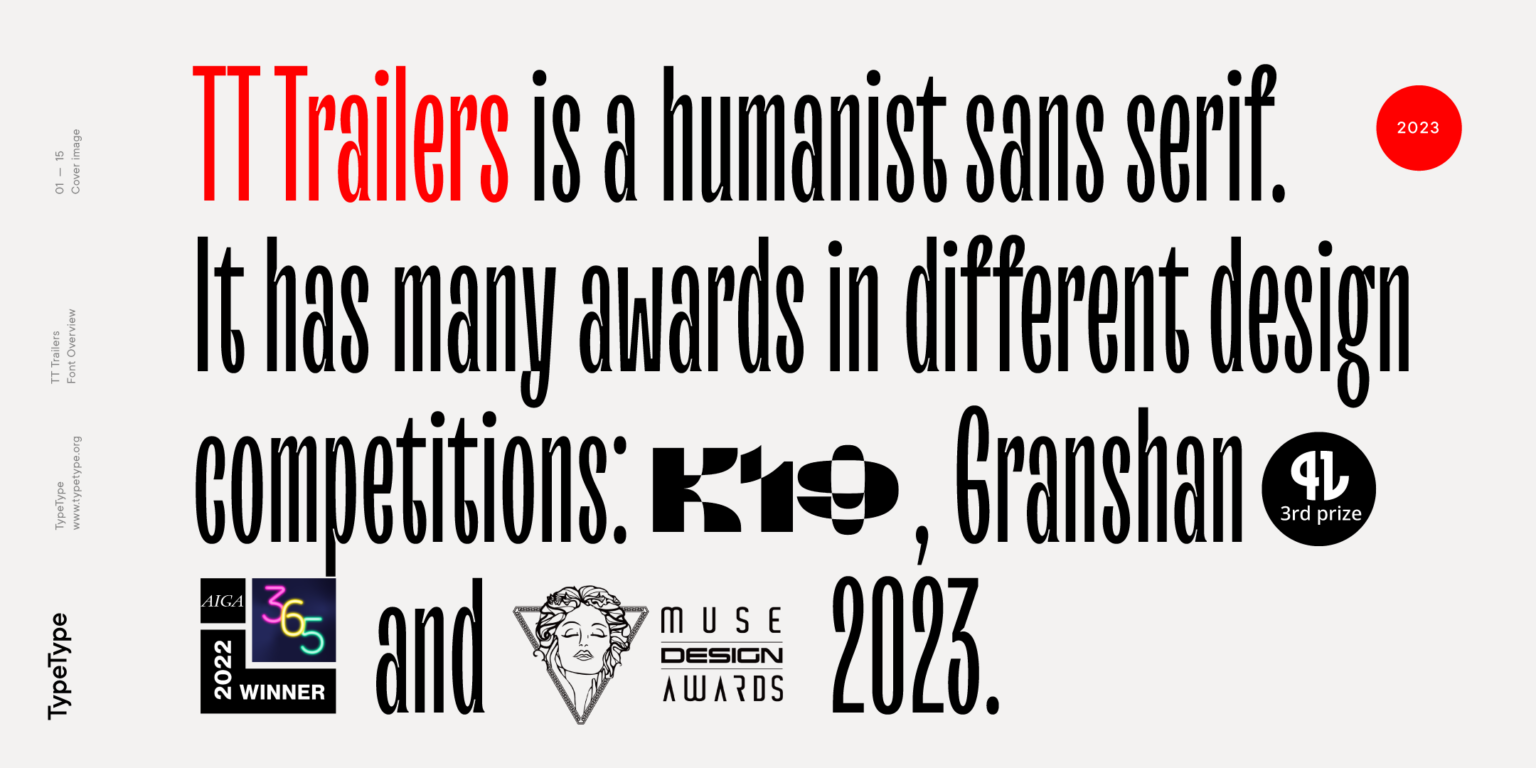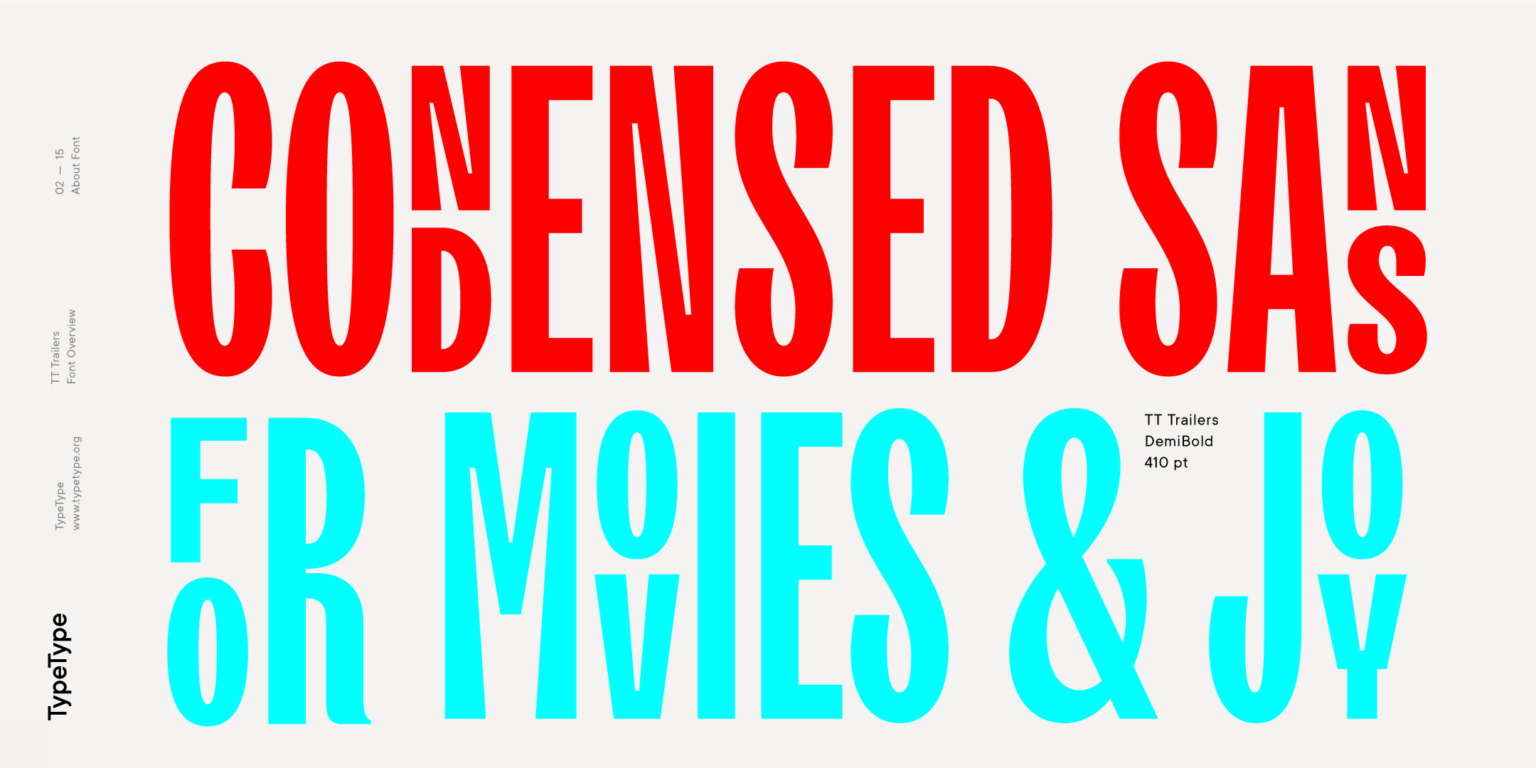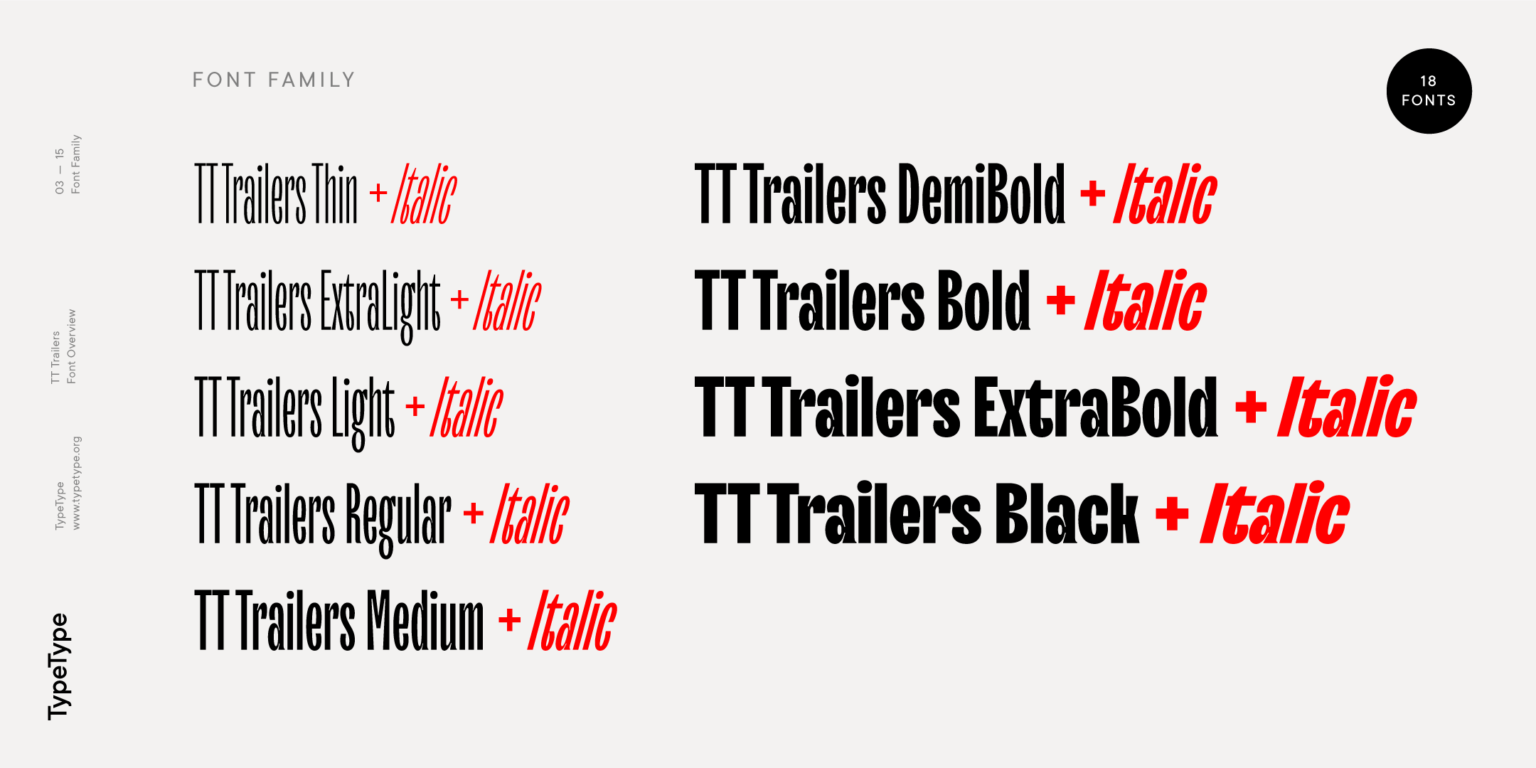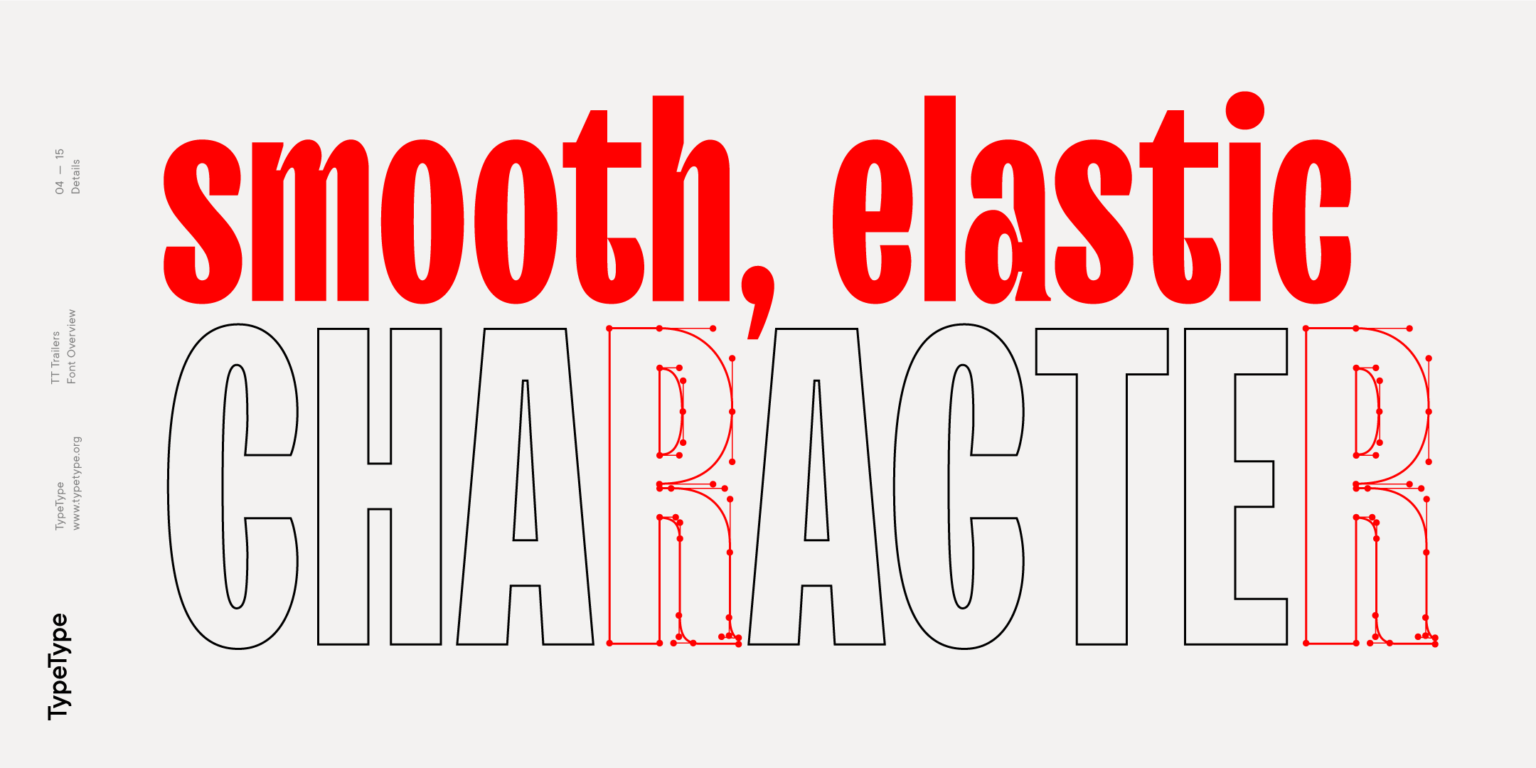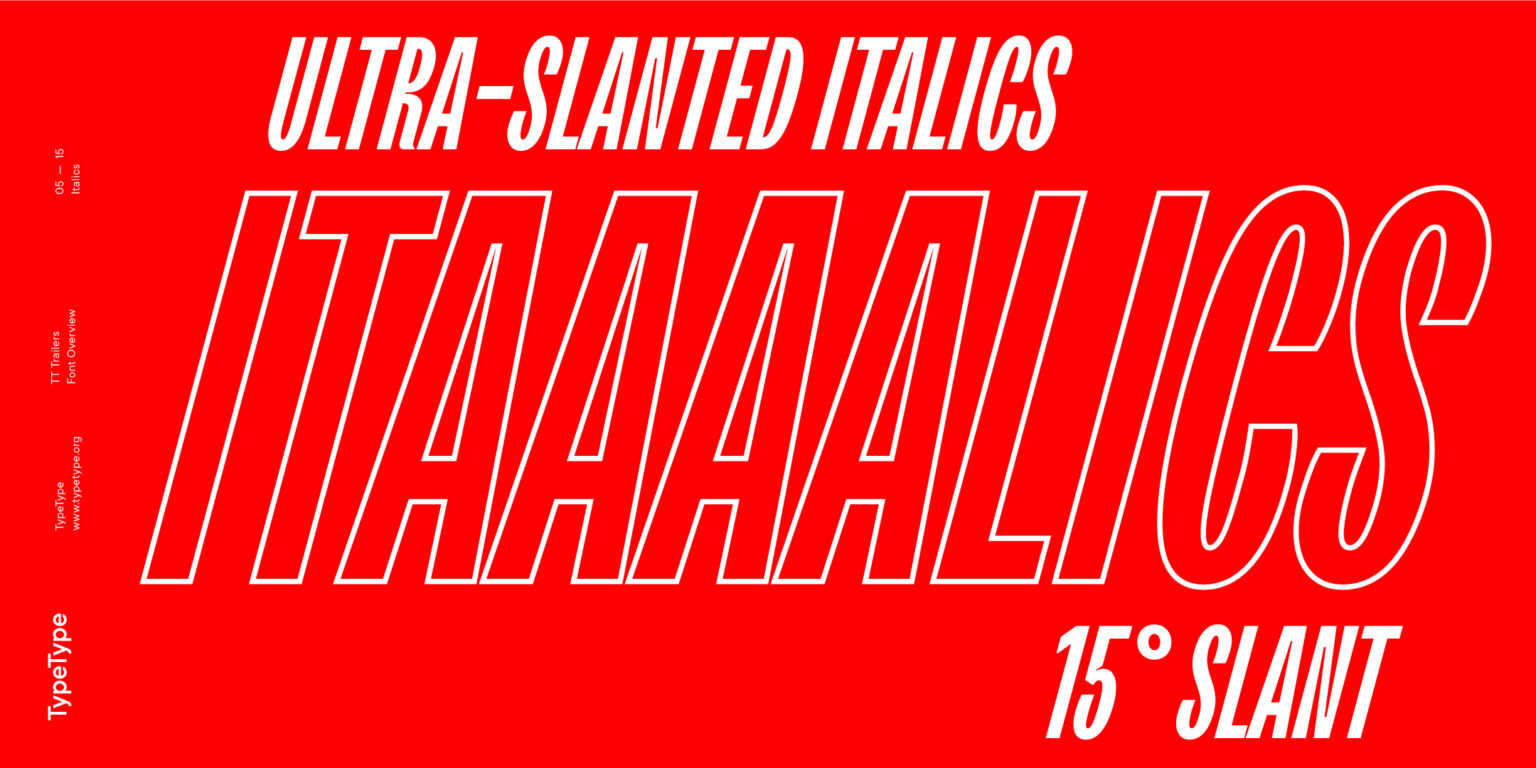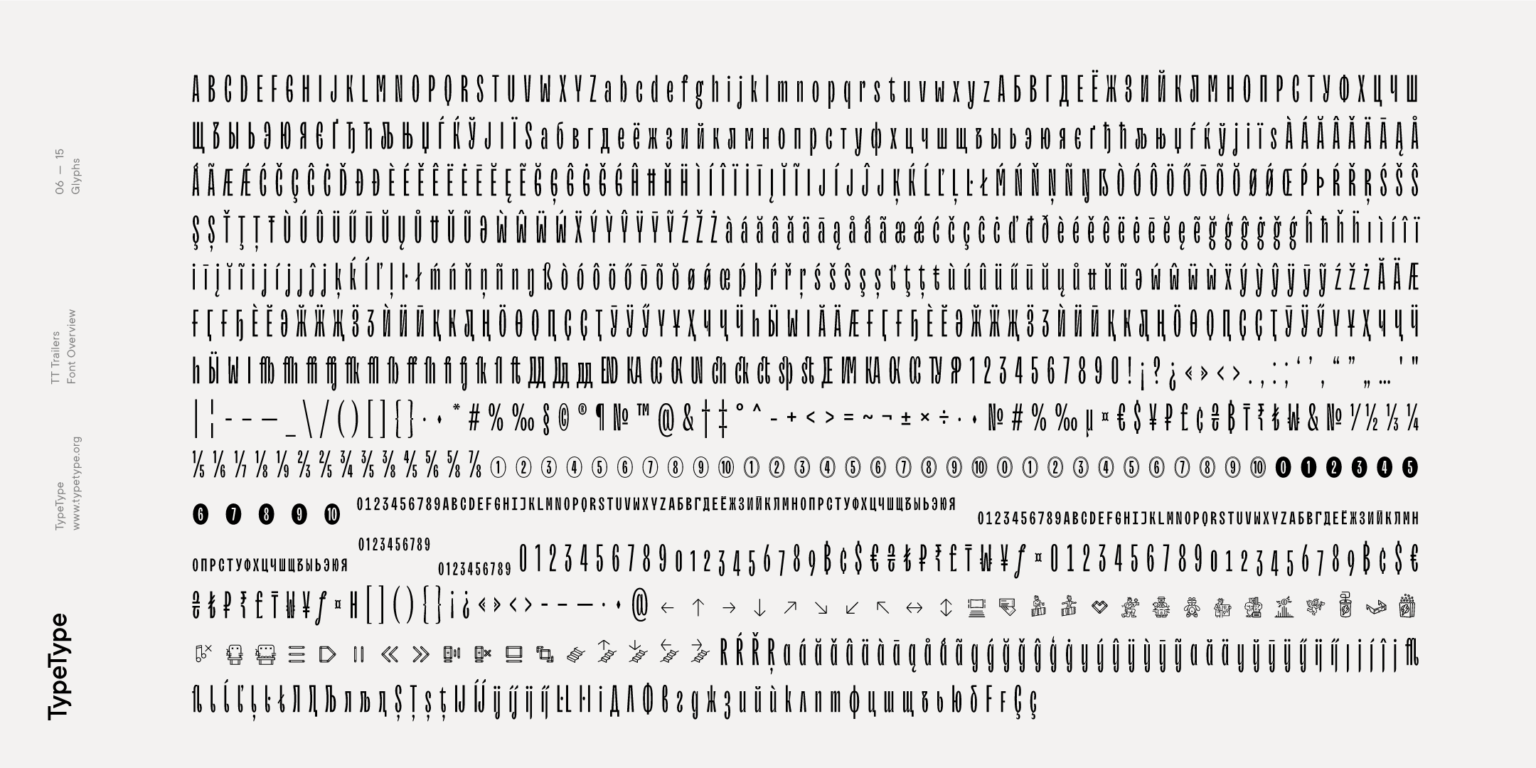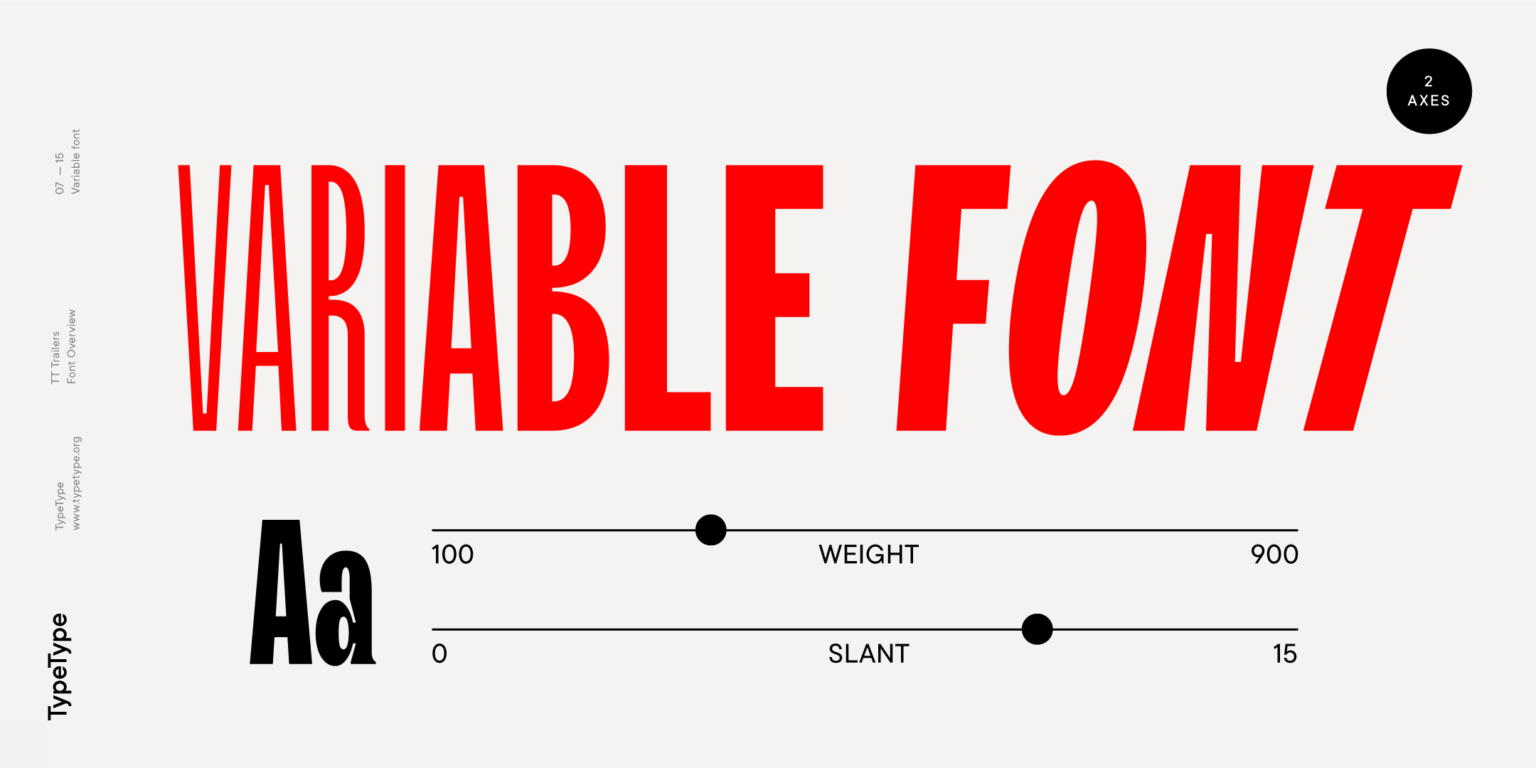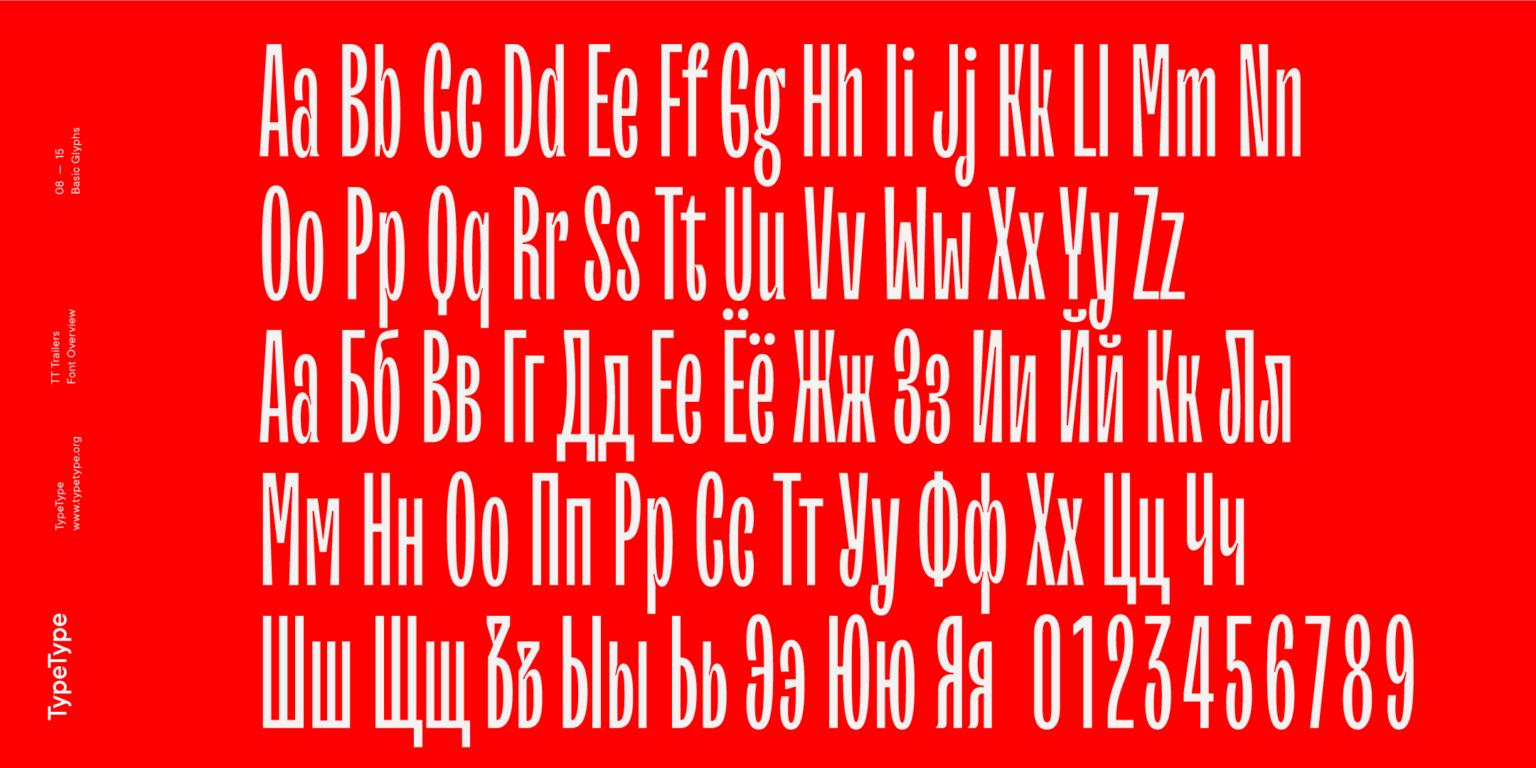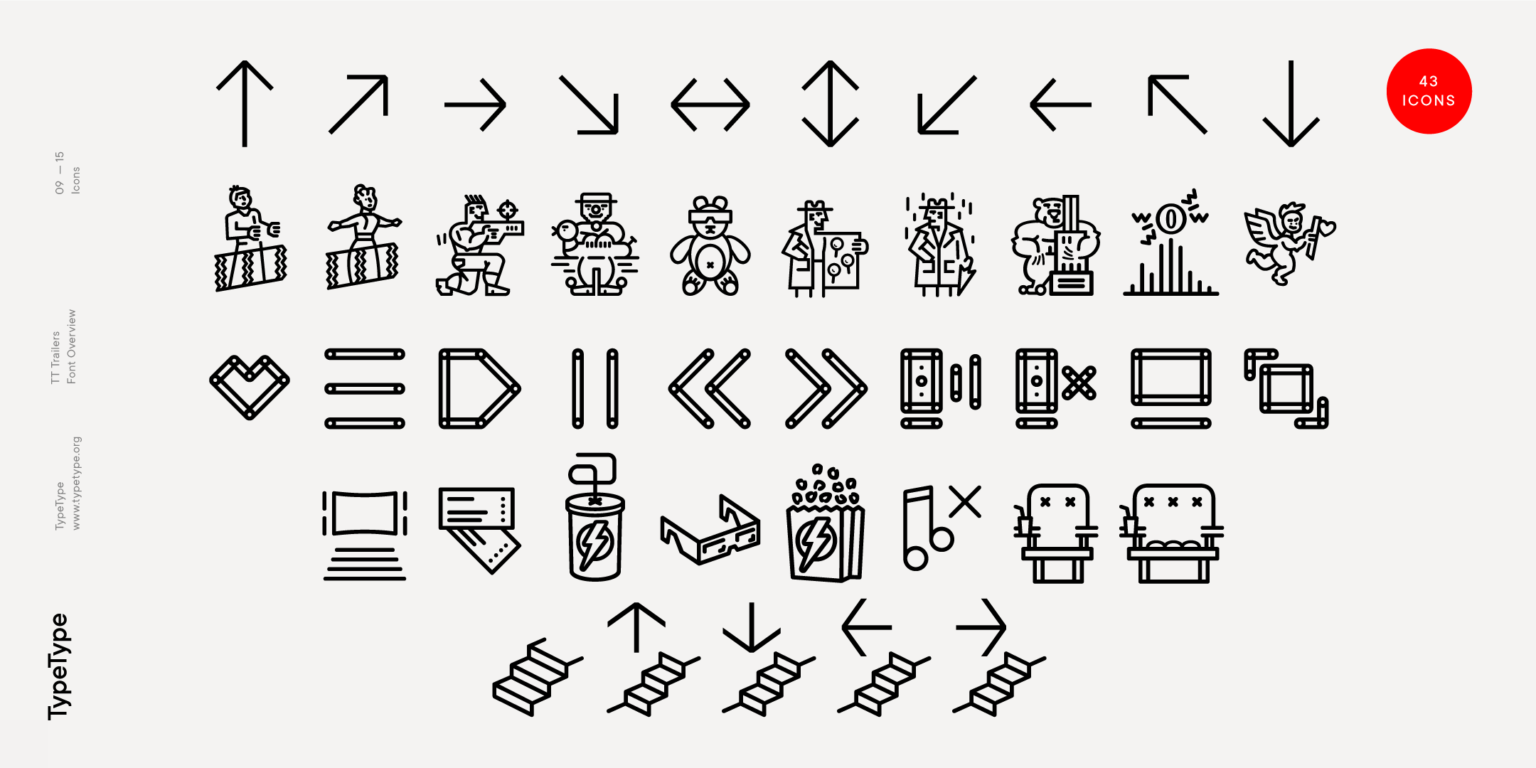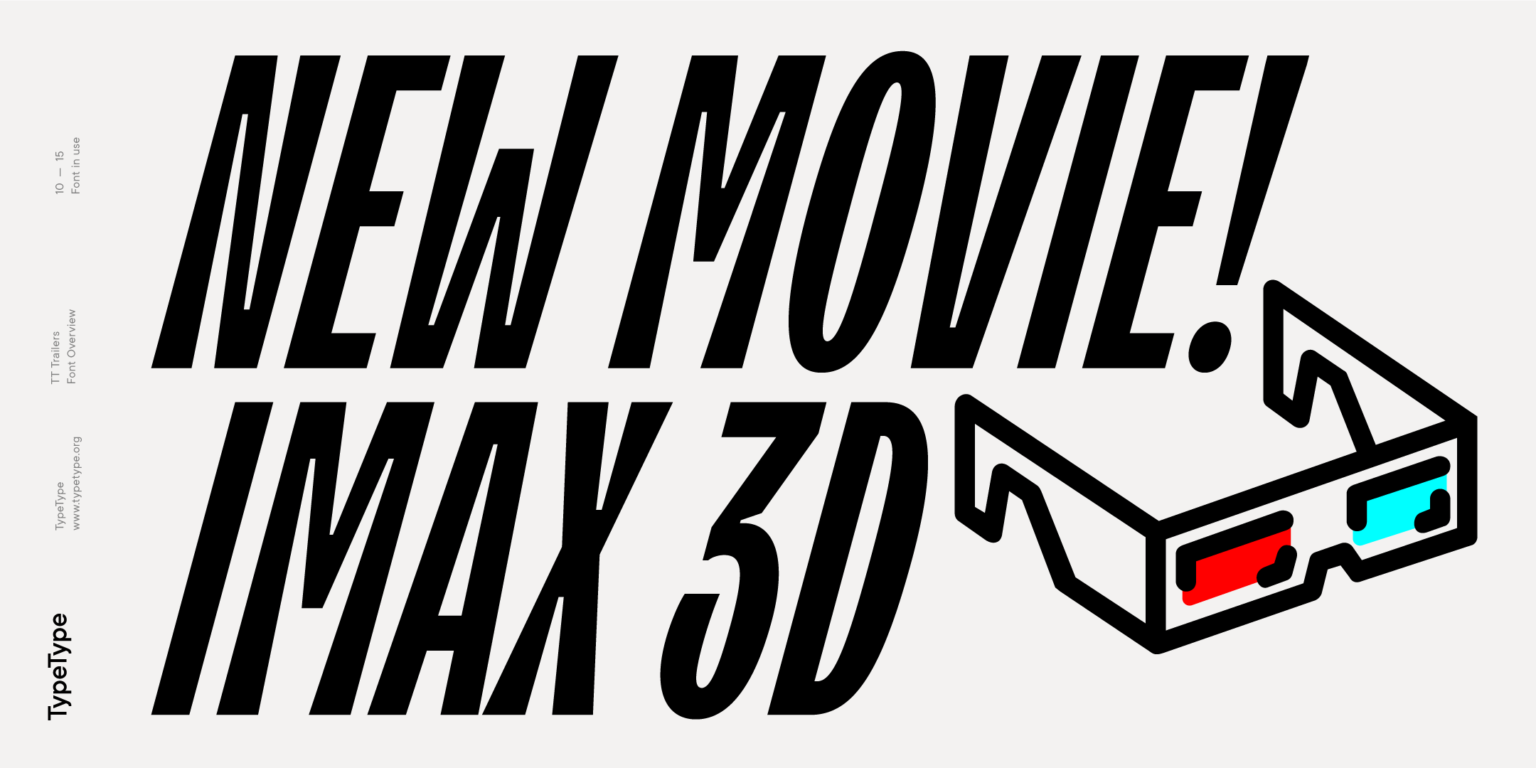
TT Trailers
TT Trailers is a bold display sans serif with unusual graphics. Each glyph features original and custom-made design, and the forms are experimental.
A modern narrow humanist grotesque
TT Trailers is based on the concept of preserving the amount of white: when changing from thin to bold, the width of characters increases significantly, which ultimately allows you to save an equal amount of white inside and between letters
A new generation of narrow fonts for use in movie credits and posters
We made it possible to raise letters and numbers to lower or upper case
About font family TT Trailers
240+ Language support
Introducing the updated TT Trailers: TypeType’s attention-grabbing font, born to be a screen sensation!
TT Trailers is a stylish and expressive display sans serif. This font is easily recognizable by its unusual graphics: the design of each glyph in the font is original and custom-made, and the forms are experimental. Some of the typeface’s distinctive features include ultra-narrow proportions, unusual junctions, closed apertures, and terminals slightly bent inward. Italics in TT Trailers are as eccentric as roman font styles. The 15-degree slant angle looks absolutely well-balanced and complements the typeface’s character.
TT Trailers was initially designed to be an ideal match for the film industry. It integrates seamlessly into poster designs and works amazingly well in credits. Yet, in practice, the application scope of the typeface extends far beyond that.
The variable font included in TT Trailers expands its capabilities even further. It has two axes of variation: weight and slant. Numerous OpenType features allow designers to adjust the typeface to suit a wide variety of purposes. The font also includes a custom-made set of icons inspired by the film industry—another great addition for designers.
The updated version of TT Trailers boasts a larger character set, enhanced technical aspects, and improved contours. In addition, we implemented characters of the extended Latin and Cyrillic alphabets, new alternate glyph versions, and extra sets of figures.
TT Trailers is tailored for credits, posters, websites, and printed materials. The typeface will elevate the designs of magazine covers, add charm to signs of restaurants and cafes, and become an aesthetic element on posters.
TT Trailers includes:
• 19 font styles: 9 roman, 9 italic, and a variable font.
• 1242 glyphs in each font style;
• 42 OpenType features;
• 120+ languages support.